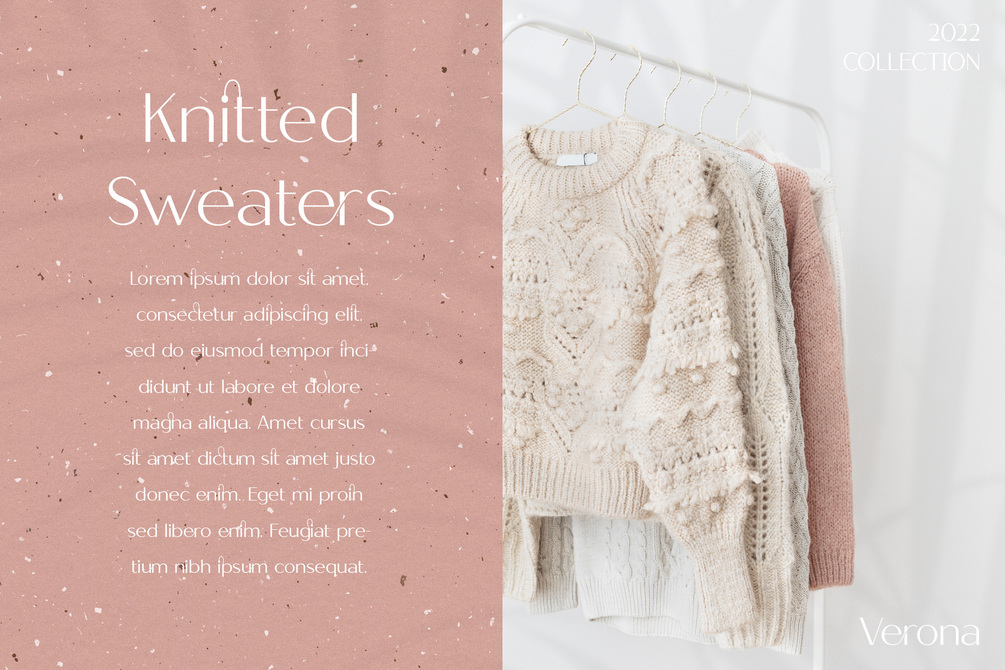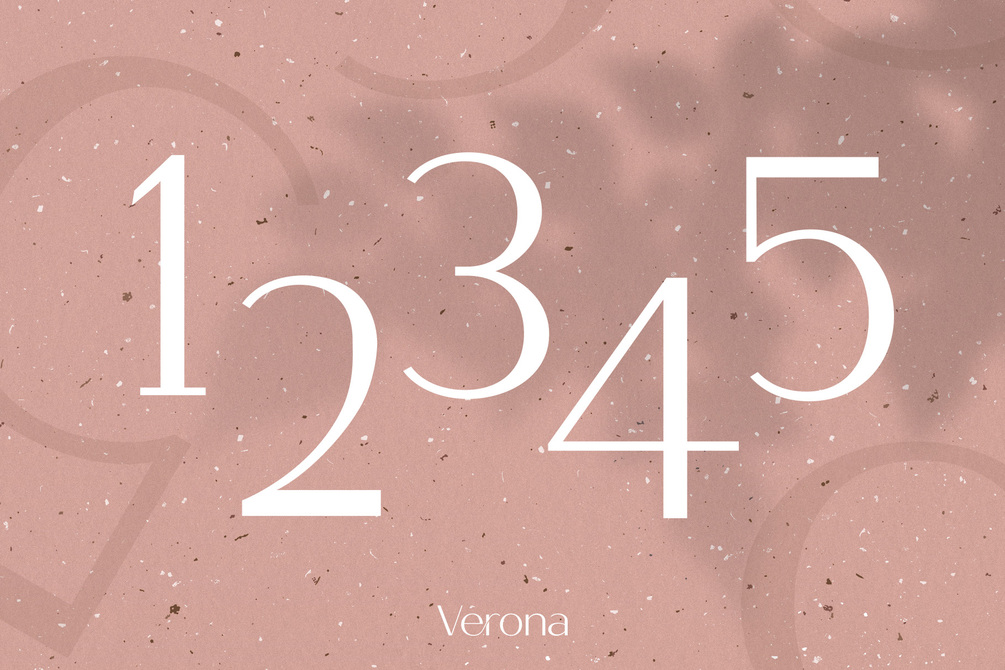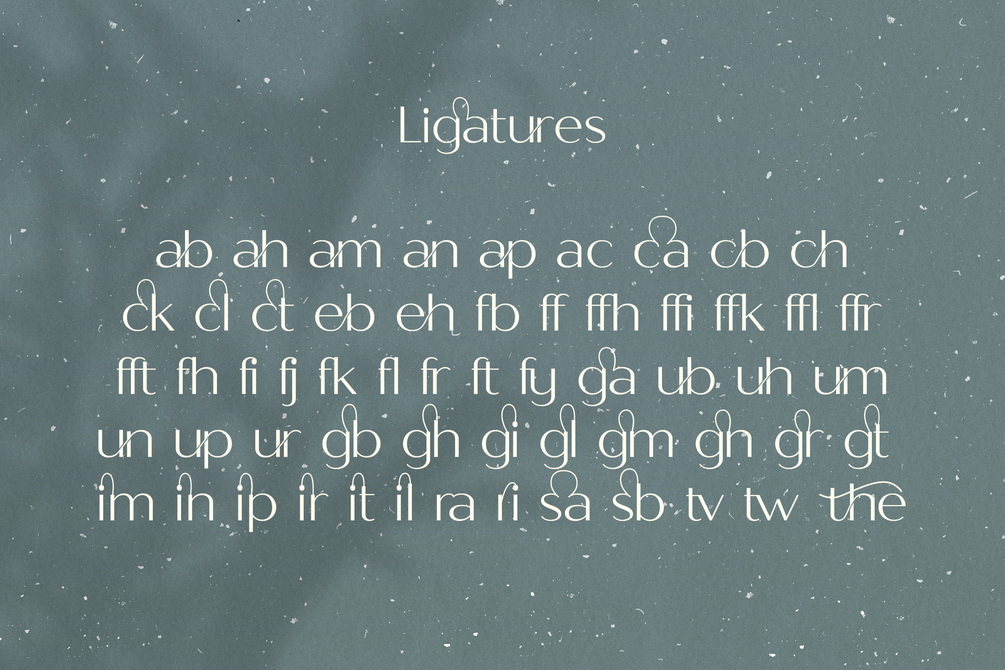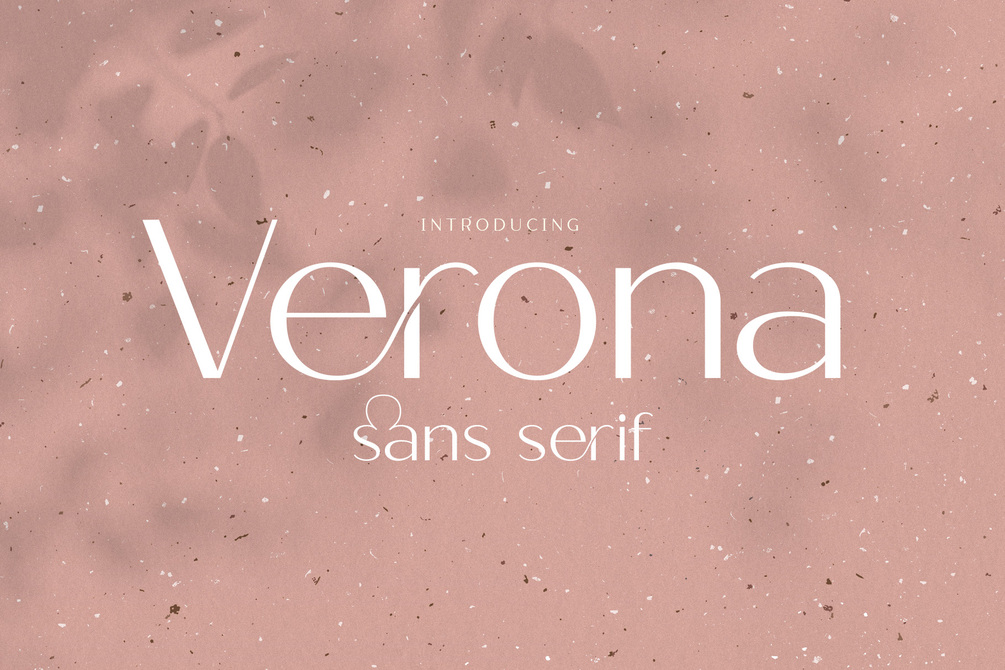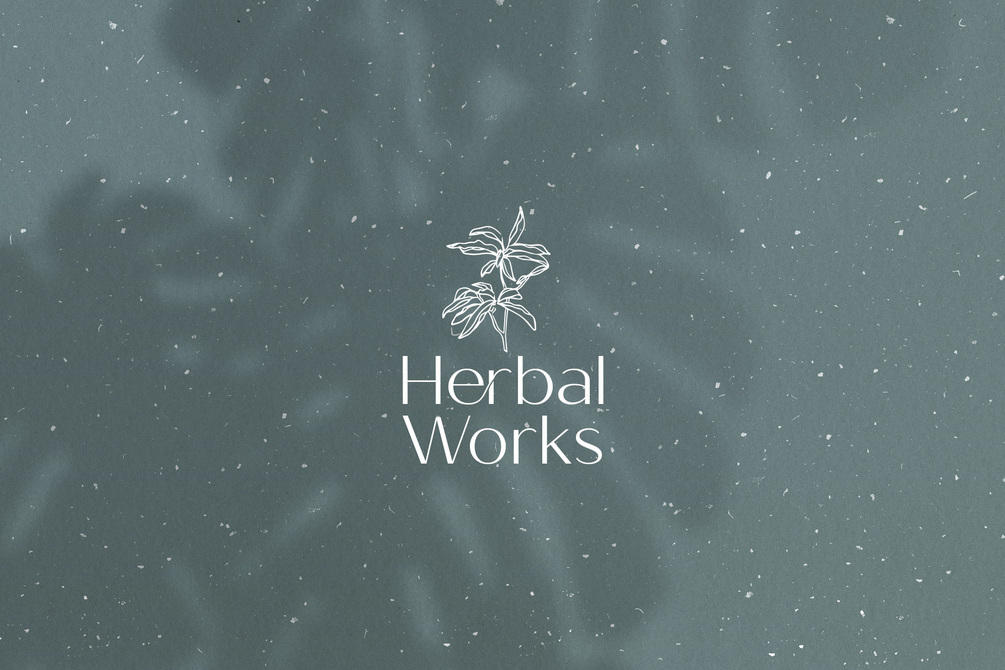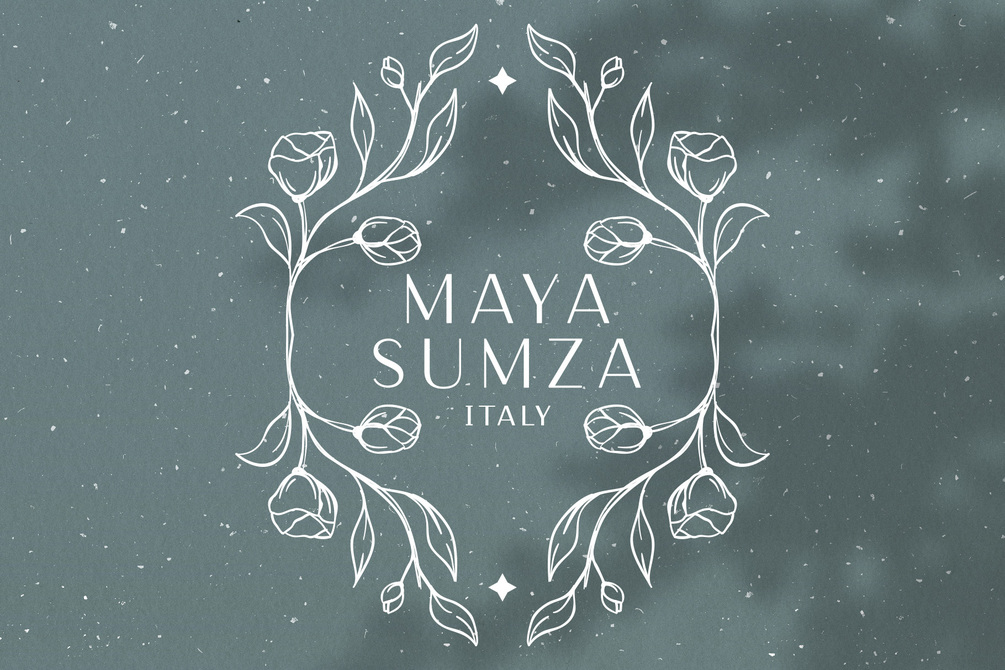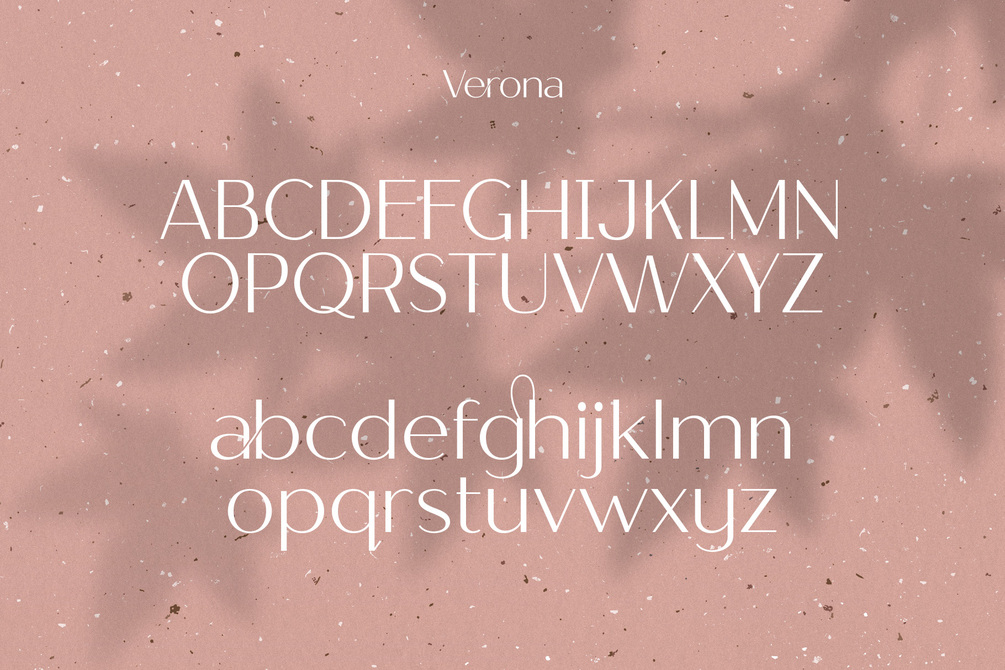
Verona - Classy Sans Serif
Verona is a classy sans serif typeface. Verona is ideal for branding, logos, invitation, print, fashion, editorial design, social media, and more. This font pairs well with modern san serifs and scripts. Verona also comes with over 50 beautiful ligatures, ensuring your designs are unique.